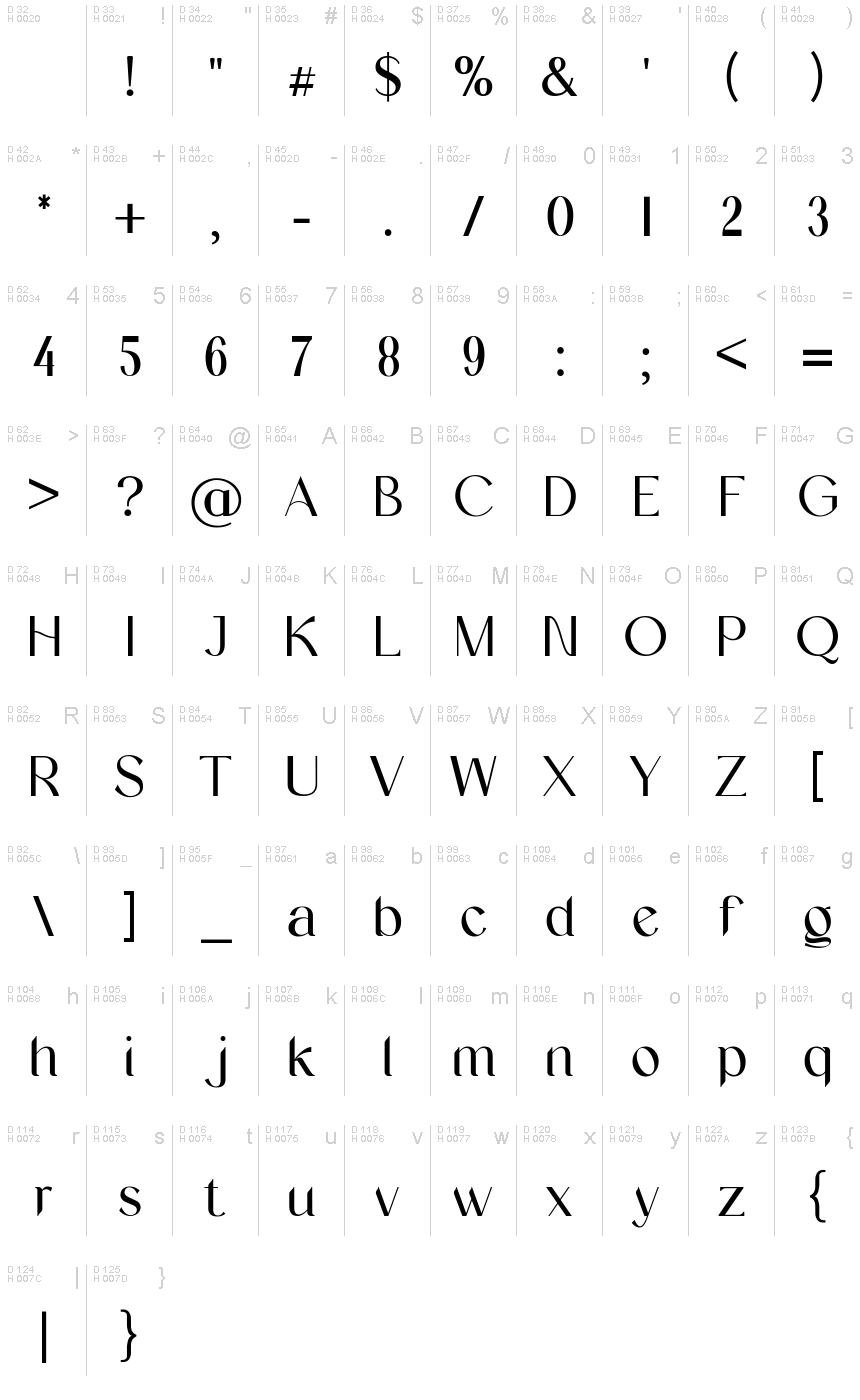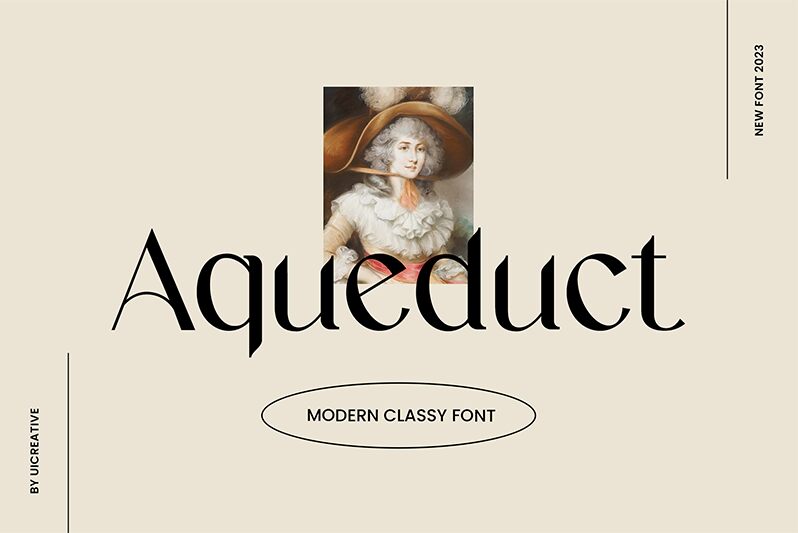
Aqueduct
Aqueduct, crafted by UI Creative, stands out with its elegant and refined design. Its distinctive curves and sophisticated lines evoke a sense of timeless beauty, making it a perfect choice for high-end branding and editorial projects. The font's graceful strokes and balanced proportions lend an air of classic sophistication while maintaining modern readability.
Ideal for luxury brands, upscale publications, or stylish invitations, Aqueduct offers versatility without compromising on elegance. Its unique character makes it equally suited for headlines that demand attention and body text that requires clarity and style. Use Aqueduct to elevate your designs with its harmonious blend of tradition and contemporary flair.